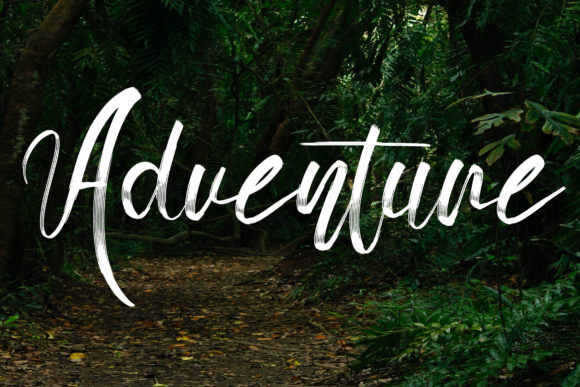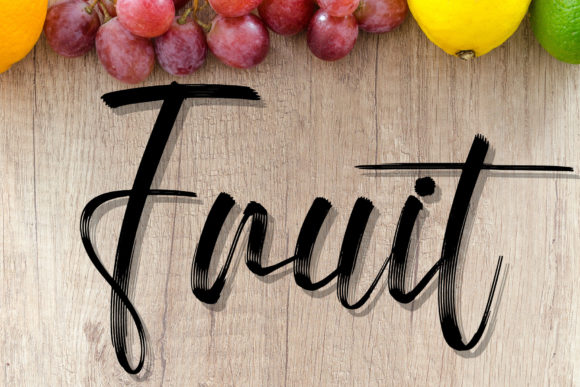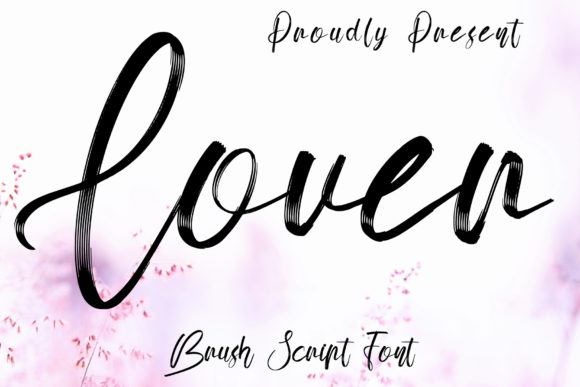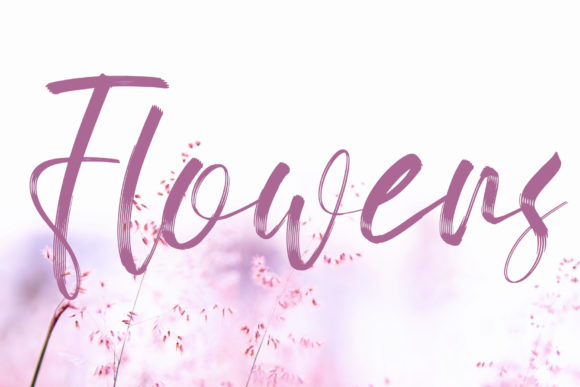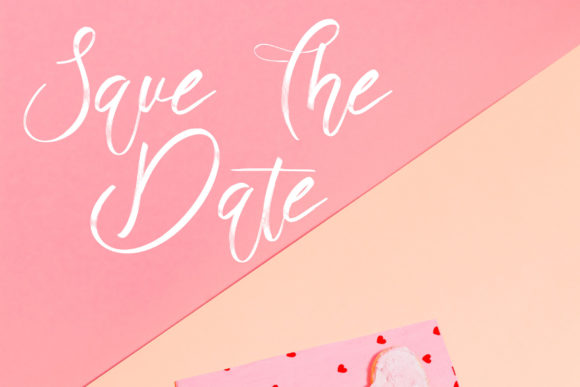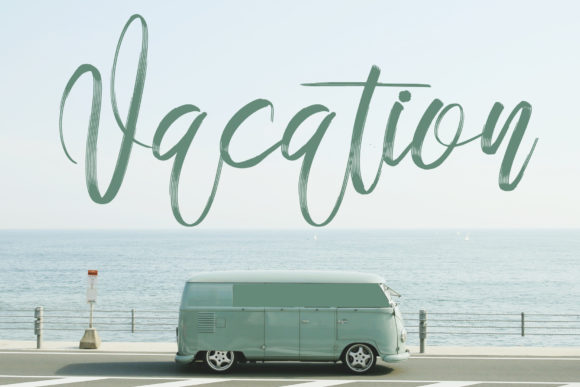
The Quest for the Perfect Font: Discovering Butterfly
Ah, the eternal struggle of finding the perfect font for your design project. I recall working on a branding project for a client who wanted a elegant, yet playful feel. As I scrolled through font after font, nothing seemed quite right. That was until I stumbled upon Butterfly, a stylish and delicate brushed script font that instantly captured the essence of what I was looking for.
First Impressions: A Beautiful Font
Butterfly is described as a balanced and varied font, and I couldn’t agree more. It’s not too thin and not too thick, making it perfect for a wide range of design projects. The font’s delicate strokes and elegant curves add a touch of sophistication to any design.
• ✨ Beautifully crafted letters with a delicate, hand-brushed feel
• ✅ Perfect balance of thickness and thinness, making it highly legible
• ✅ Versatile and suitable for a wide range of design projects, from branding to invitations
• ✅ Easy to read, even at smaller font sizes
While Butterfly is an excellent font, there are a few minor quirks to be aware of:
• ⚠️ Some letters, like the lowercase “k” and “q”, have a slightly different stroke width, which may take some getting used to
• 🤔 The font doesn’t have an extensive range of weights, which may limit its use in certain design projects
Butterfly font comes with a range of OpenType features and glyphs that can enhance your designs. Here are a few examples:
• Stylistic alternates: Butterfly has a range of stylistic alternates that can add a touch of elegance to your designs
• Ligatures: The font includes ligatures that can help to create a more cohesive look in your designs
• Swashes: Butterfly also includes swashes that can add a touch of drama to your designs
The Story Behind Butterfly
Butterfly was designed by a team of typographers who wanted to create a font that was both elegant and playful. Inspired by the delicate wings of butterflies, the team crafted a font that is both beautiful and functional.
Q: What is the best use for Butterfly font?
A: Butterfly is a versatile font that can be used for a wide range of design projects, from branding and logos to invitations and social media graphics.